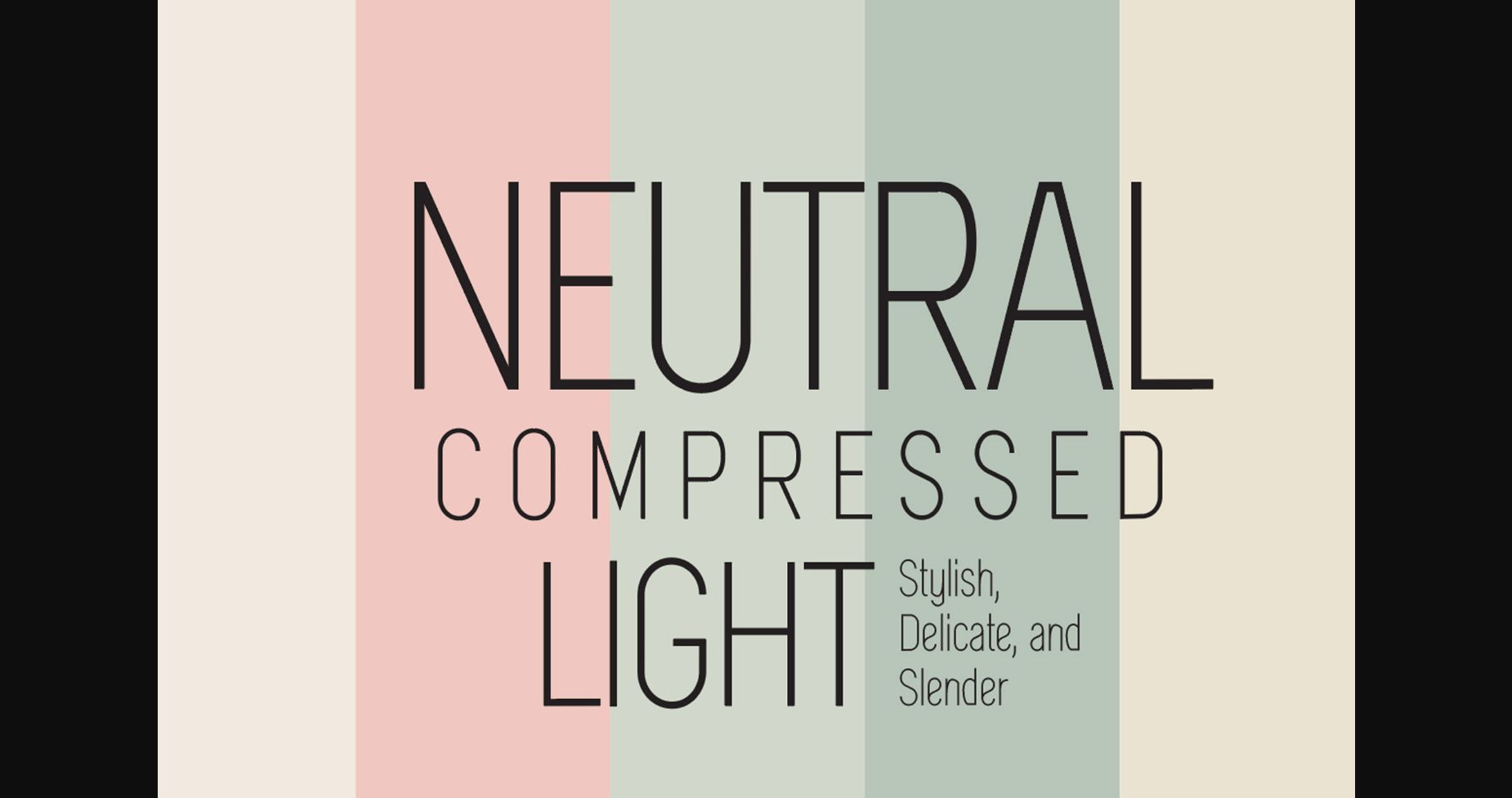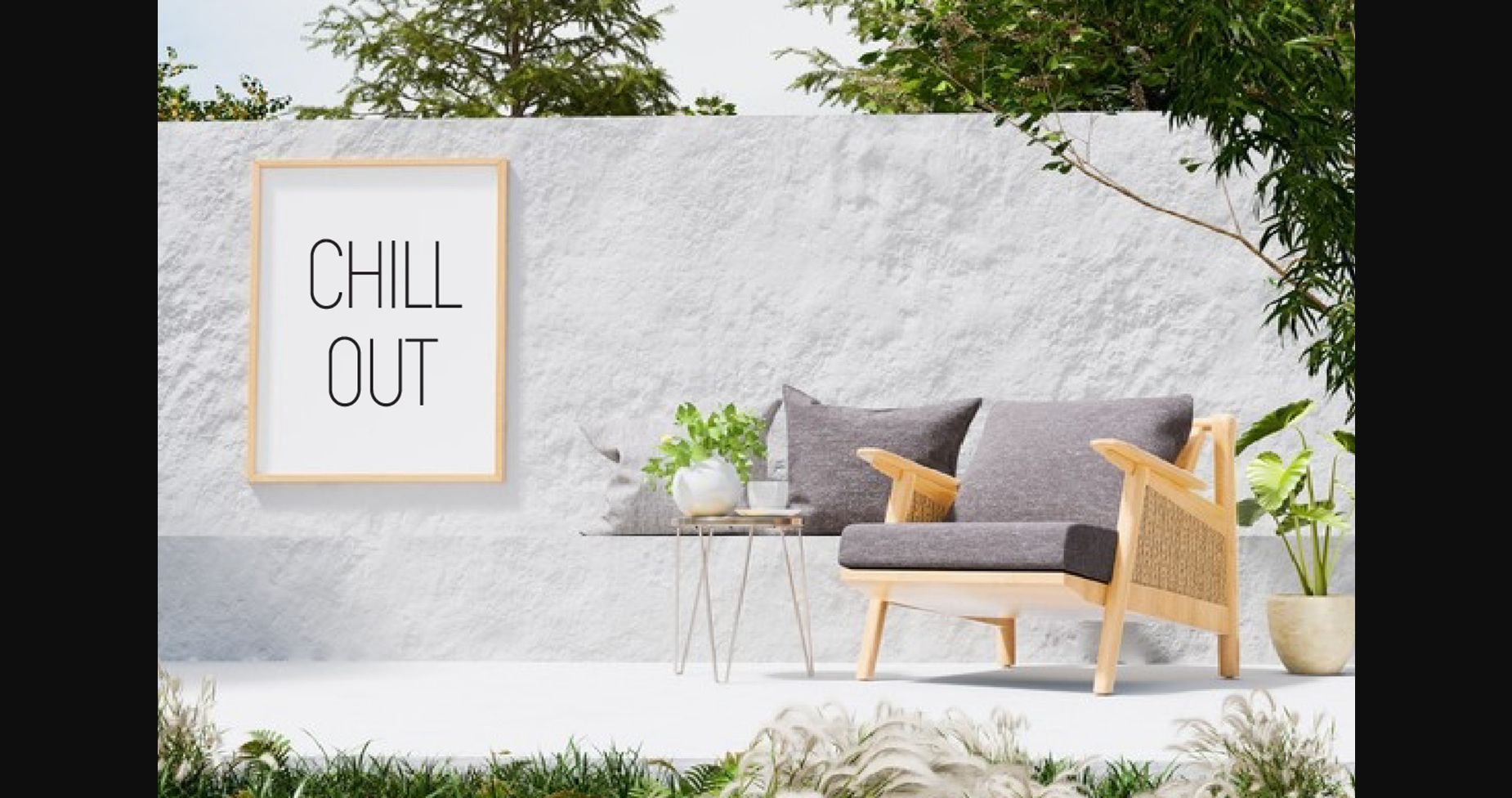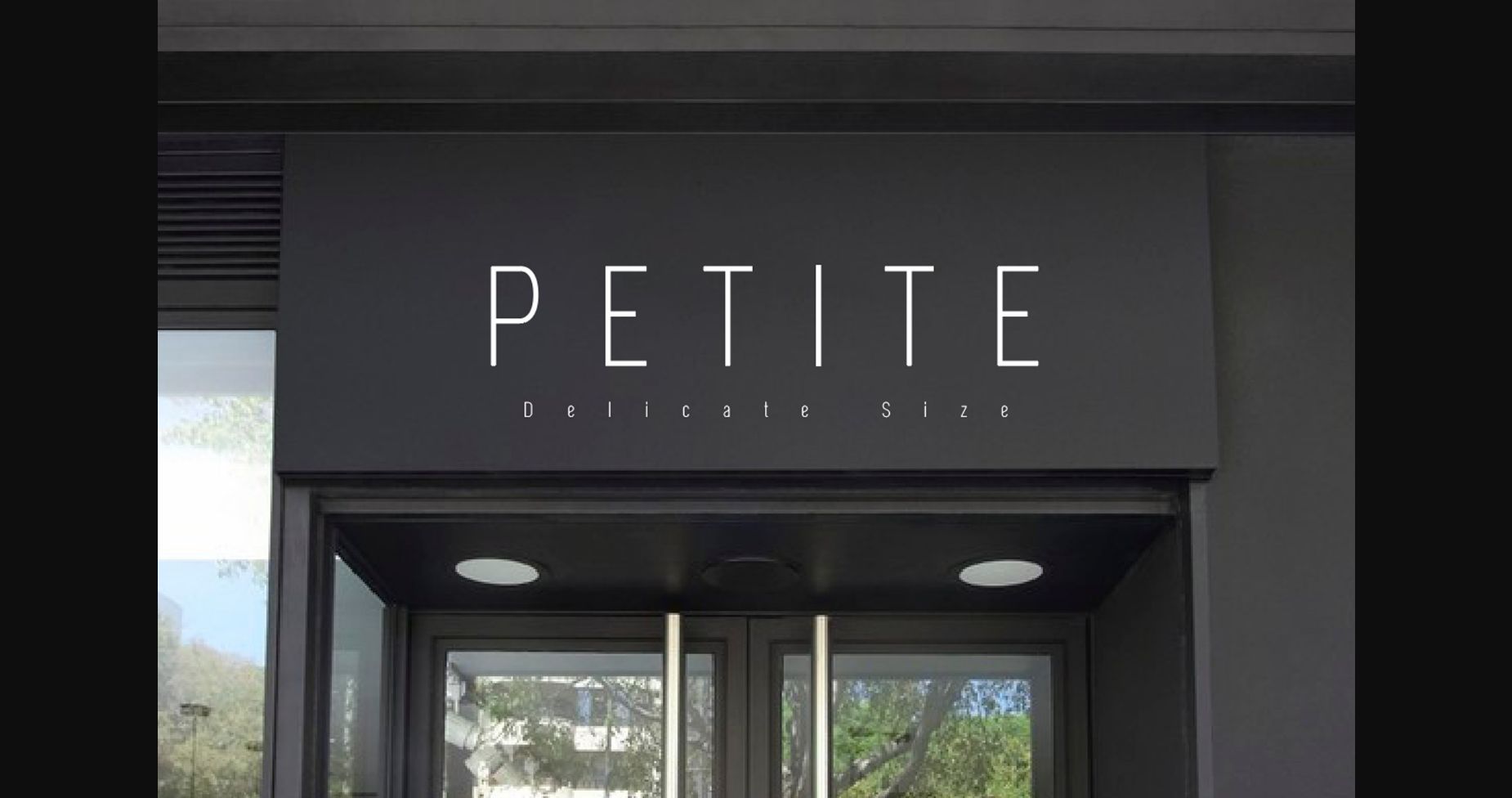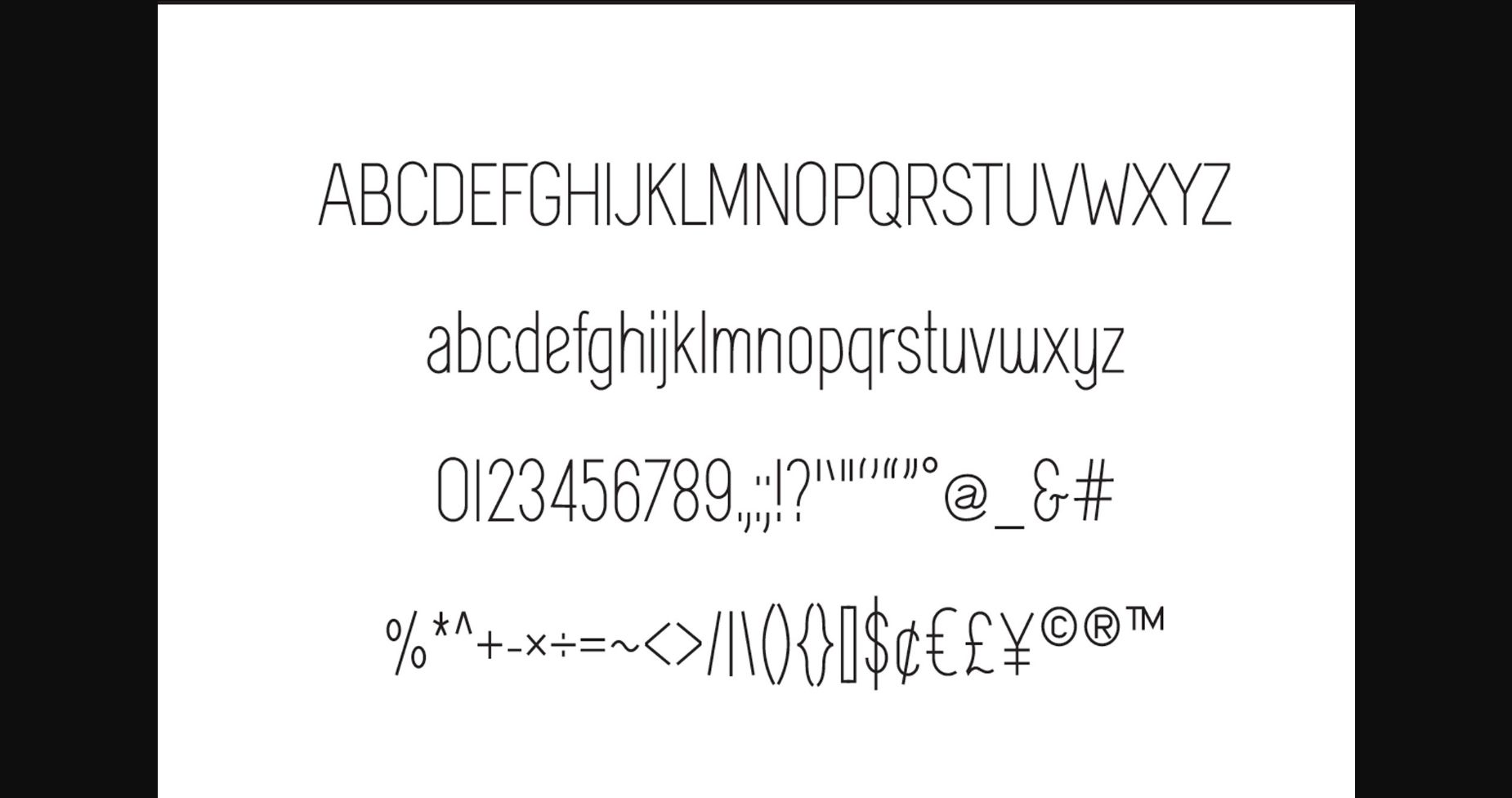
Neutral Font
About Neutral Font
Neutral is a minimal and neat sans serif font. It can easily be matched to an incredibly large set of projects, so add it to your creative ideas and notice how it makes them stand out!